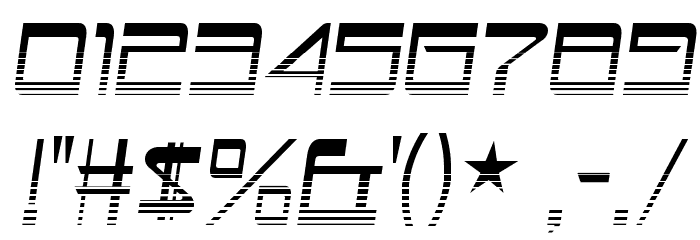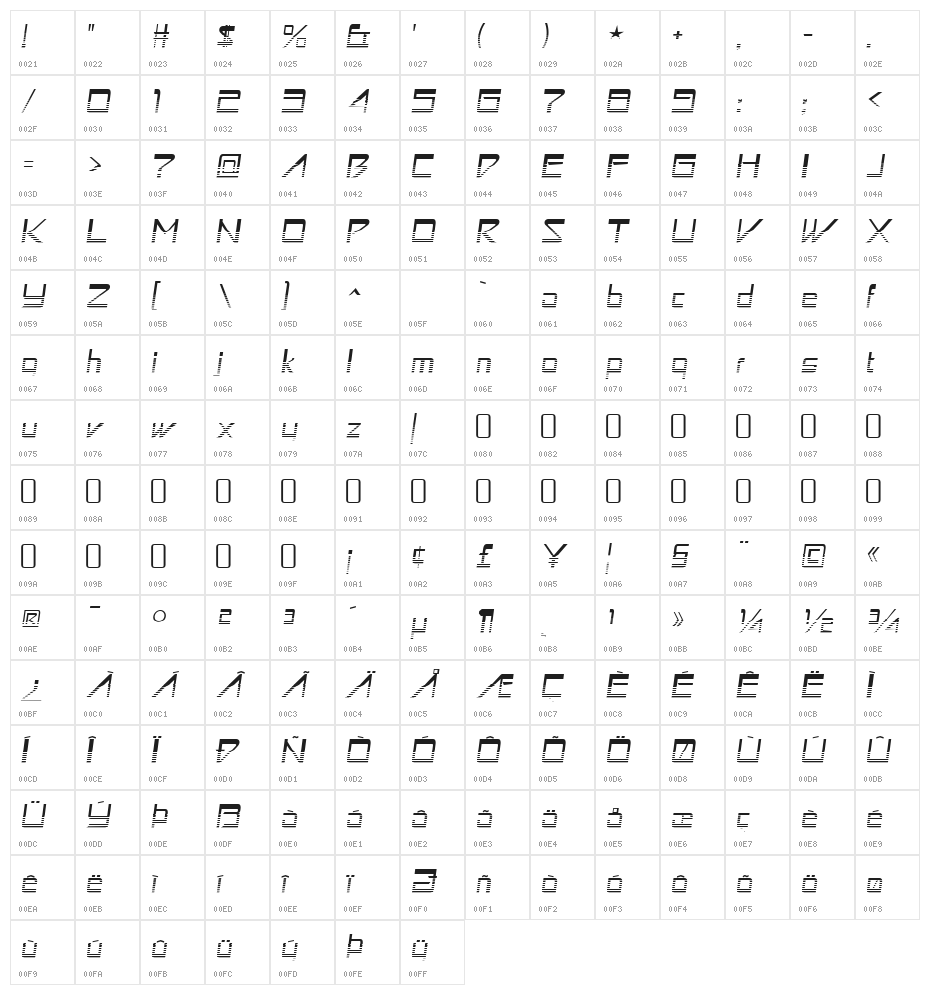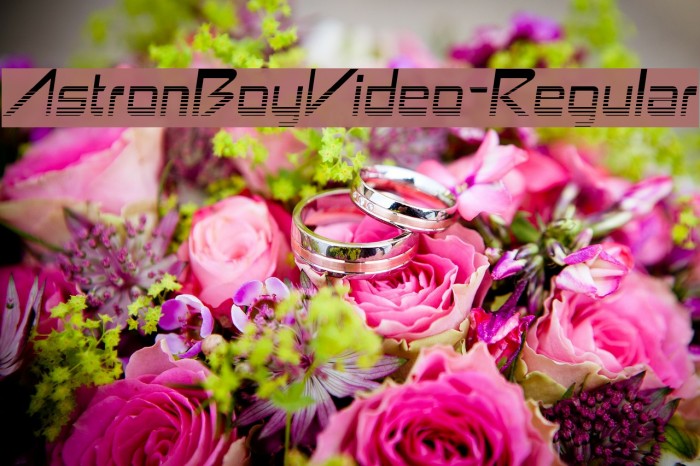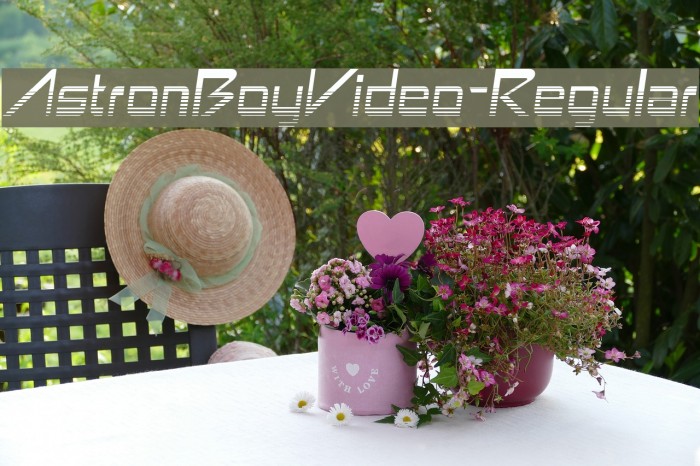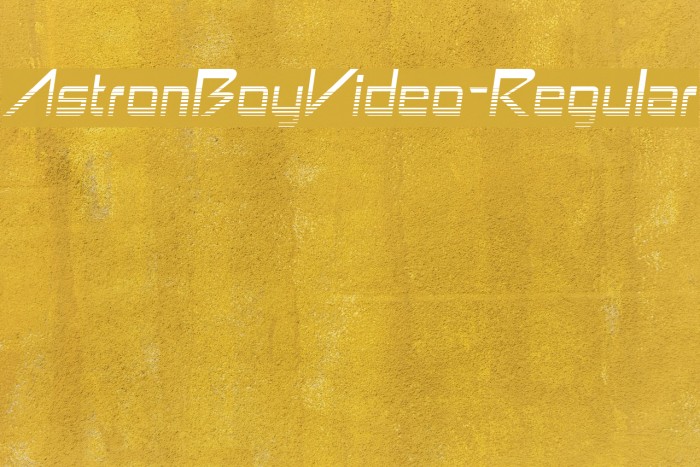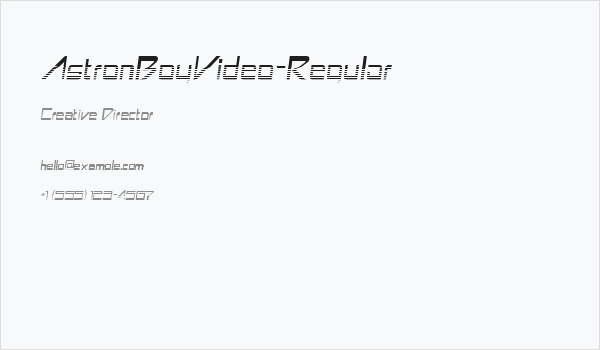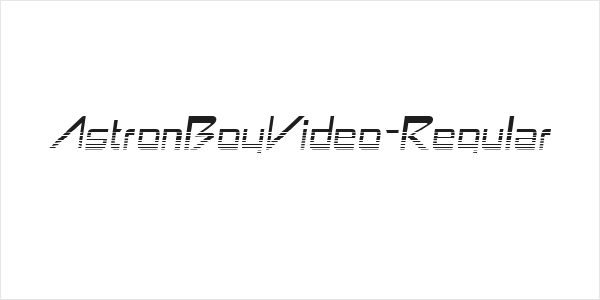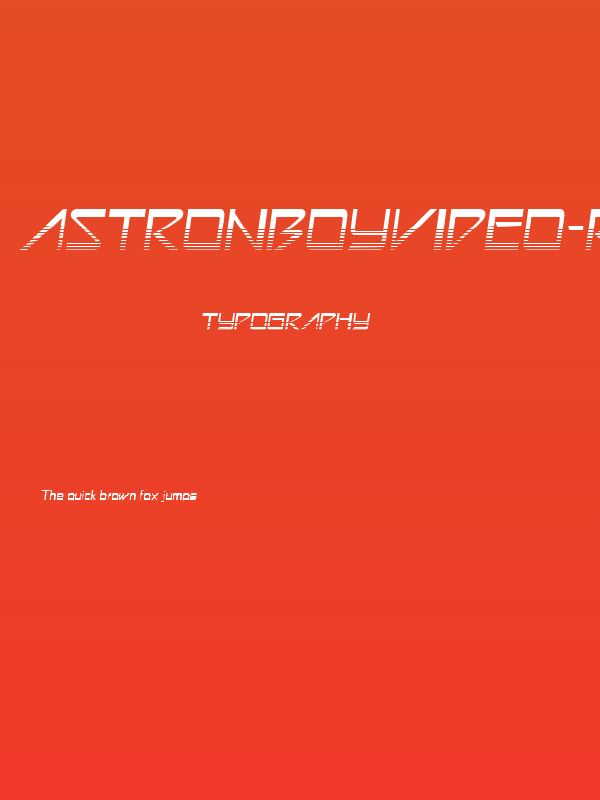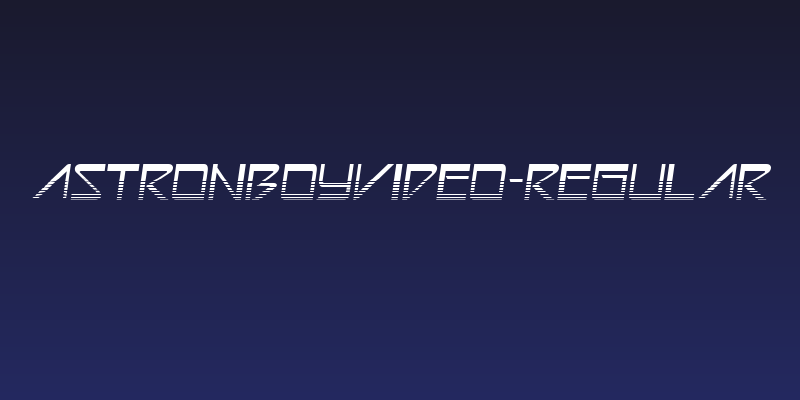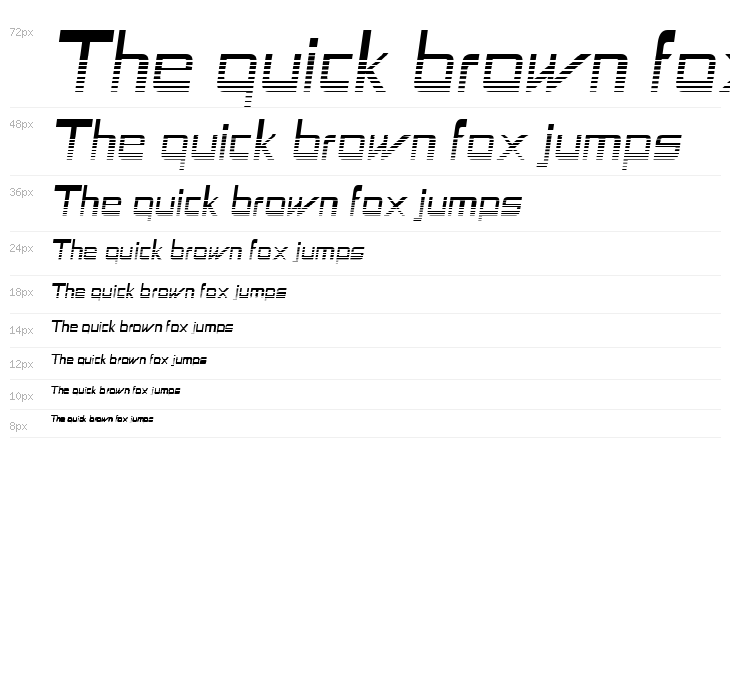
AstronBoyVideo-Regular Font
AstronBoyVideo-Regular Description
This font features a futuristic and dynamic design with a distinct striped pattern running through each character. The uppercase and lowercase letters maintain a consistent geometric structure, giving it a modern and sleek appearance. The numerals and special characters follow the same design principles, ensuring uniformity across all glyphs. The font's unique style makes it stand out, ideal for projects that require a bold and innovative look. Its design is reminiscent of digital or sci-fi themes, making it suitable for creative and tech-oriented applications.
| Proposed Projects | Ideal for sci-fi movie posters, tech company branding, video game titles, and futuristic-themed event invitations. |